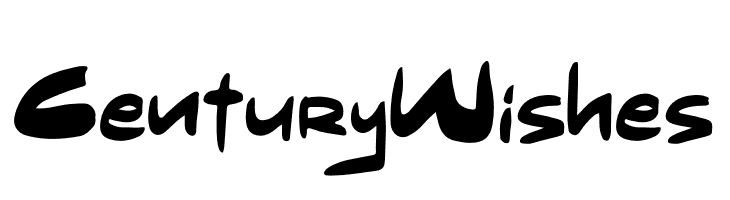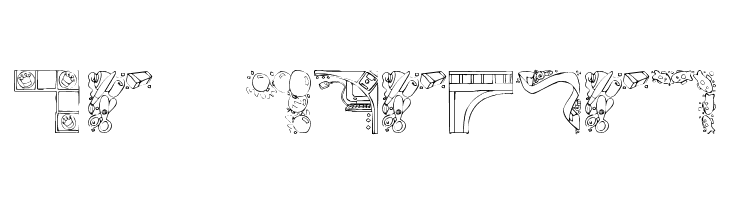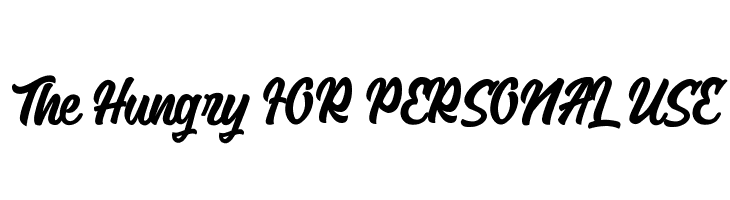
A bold, cursive script font with a playful and energetic style.
A whimsical and artistic handwritten font with flowing, interconnected strokes.
A light, elegant, and slightly italic font with a modern and fluid style.
A bold, decorative font with a patriotic, italicized style and textured interior.
A bold, italicized font with a dynamic and impactful style.
A diverse set of decorative corner designs featuring floral, geometric, and architectural elements.
An elegant, flowing script font with a cursive, handwritten style.
A bold, dynamic font with thick, block-like letterforms and slightly rounded edges.
A bold, expanded, and italicized futuristic font with geometric shapes.
A bold, 3D italic font with a modern, geometric style.